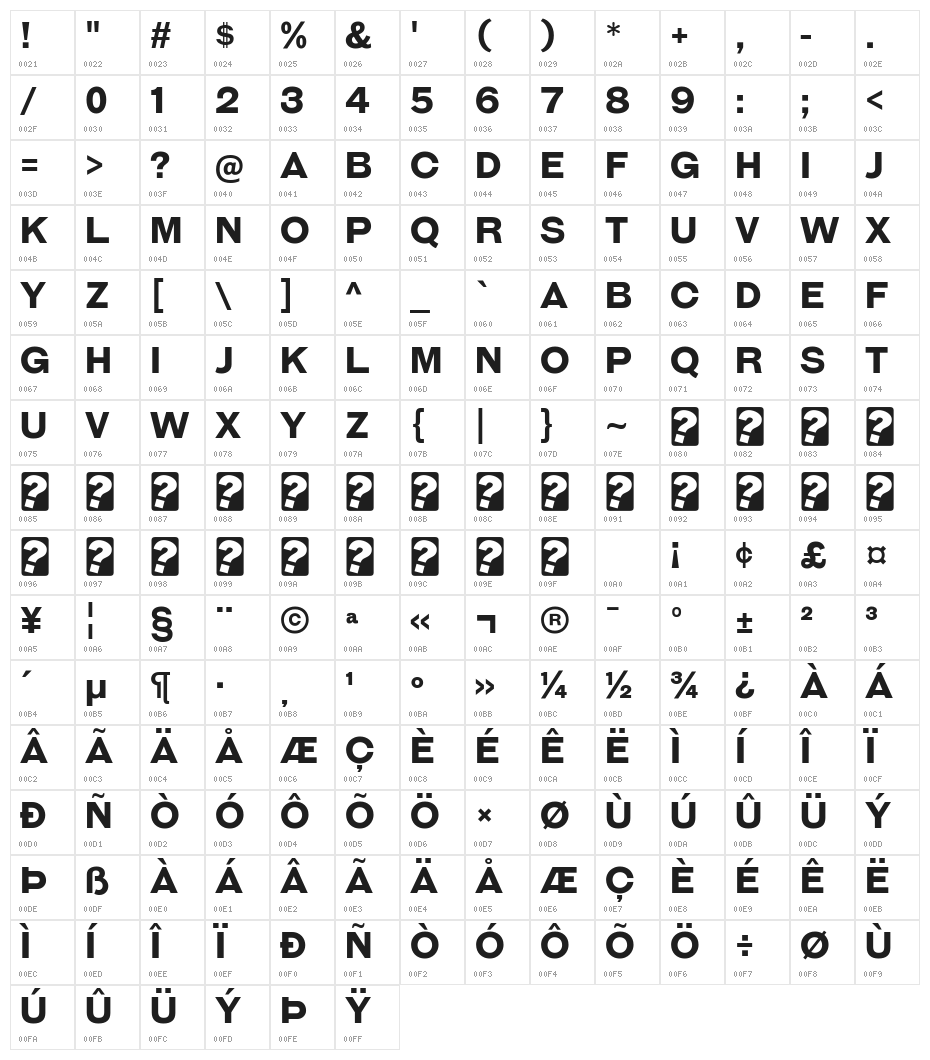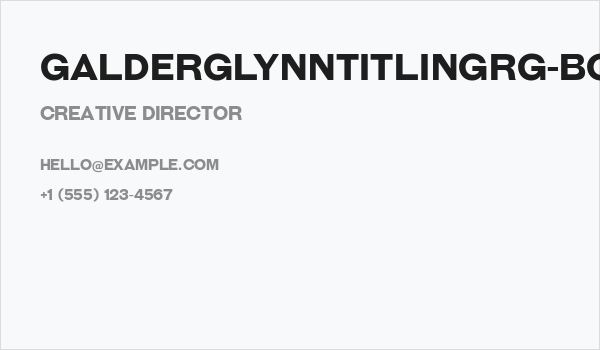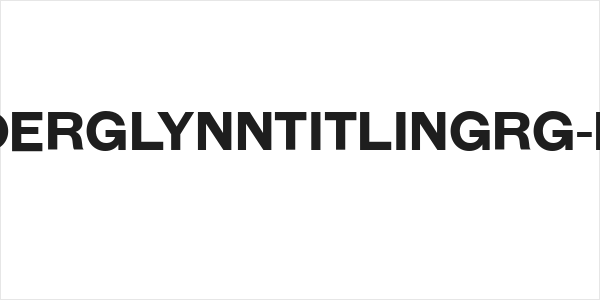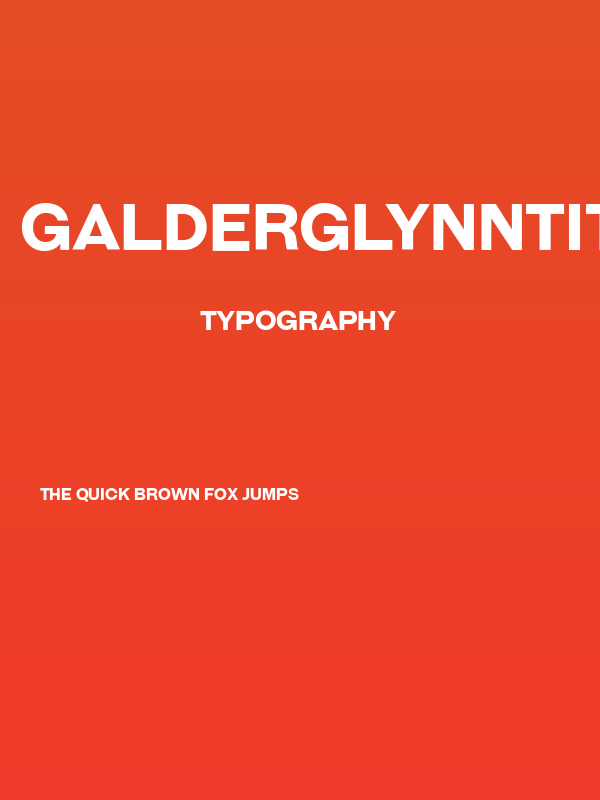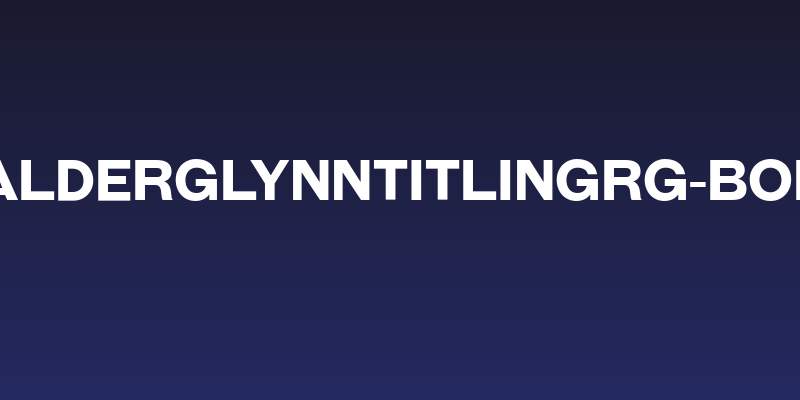
GalderglynnTitlingRg-Bold Font
GalderglynnTitlingRg-Bold Description
This font exhibits a bold and assertive presence with its strong, thick strokes and clean lines. The characters are uniformly designed, providing a sense of balance and stability. The uppercase and lowercase letters maintain a consistent style, ensuring readability and clarity. The numbers are equally bold, matching the overall aesthetic of the font. Special characters are well-integrated, adding versatility for various design needs. The font's modern and straightforward appearance makes it suitable for impactful headlines and branding projects.
| Proposed Projects | Ideal for branding, headlines, posters, and any design requiring a strong visual impact. |